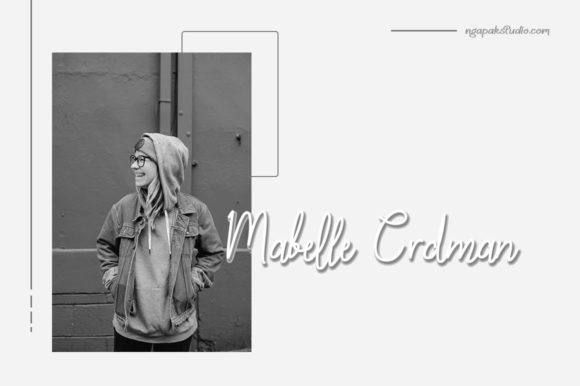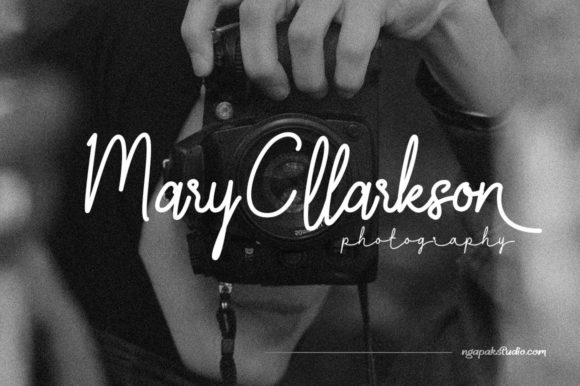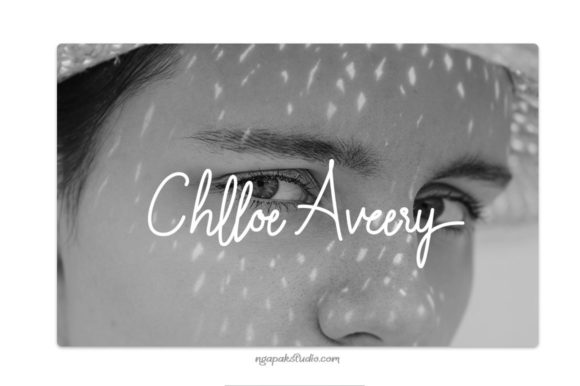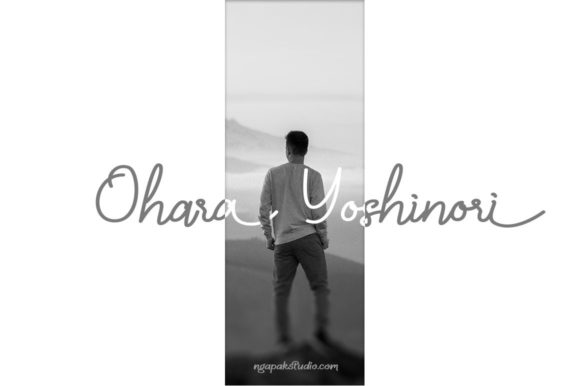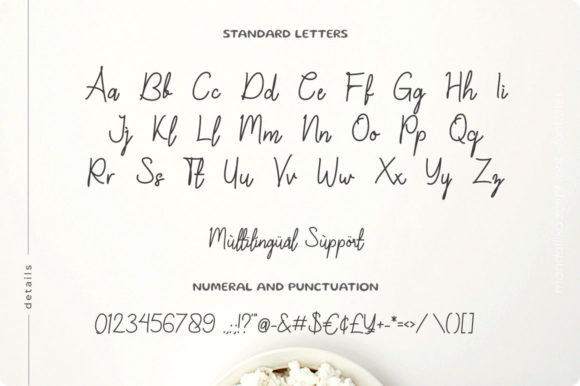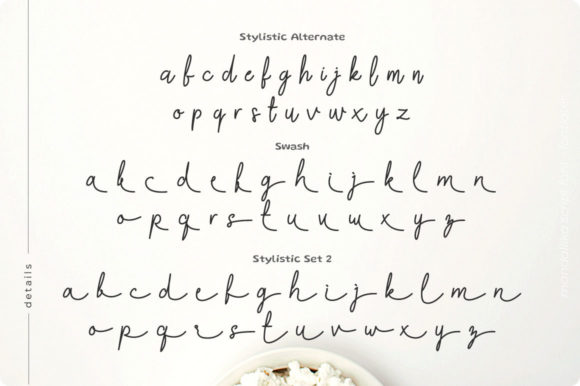
Introduction to Mandallika Font
Meet the Mandallika Font, a stunning handwritten font that’s perfect for adding a touch of elegance to your designs. With its unique and personalized style, this font is a valuable resource for designers looking to create high-quality designs that stand out from the crowd. And the best part? It’s PUA encoded, making it easy to access all its glyphs and swashes with ease.
Key Features of Mandallika Font
- High-quality, elegant script font perfect for creative projects requiring a touch of sophistication.
- Features a transparent background, allowing for seamless integration with any background image or design element.
- Unique, hand-drawn design elements and flourishes add a personal touch to any creative project.
- Perfect for use in wedding invitations, greeting cards, and other design projects where a touch of elegance is required.
Honest Review: Mandallika Font
I recently had the chance to work with the Mandallika Font for a creative project, and I’m excited to share my honest review.
What works well: ✨ The Mandallika Font has a beautiful, elegant design that’s perfect for projects that require a touch of sophistication. The high quality of the font is evident, and it’s great to see a free download that rivals paid options. The transparent background makes it easy to use in various design applications.
- Beautiful, elegant design
- High quality
However, there are a few limitations to consider: ⚠️ The font is a bit limited in terms of styles, and it may not be suitable for projects that require a lot of customization. Additionally, the free version does come with some watermarks, which can be distracting if you’re looking for a completely professional look.
Overall, I’m impressed with the Mandallika Font. While it’s not perfect, it’s a great design resource that’s perfect for projects that require a touch of elegance. With a bit more customization options, it could be a top contender in the design world.
Tips for Getting the Most Out of Mandallika Font
Use Mandallika Font in conjunction with other design resources to create a cohesive look. Experiment with different font sizes, colors, and styles to add visual interest to your creative project. Consider using a high-quality image or texture to add depth and dimension to your design.
Mandallika Font is suitable for a variety of creative projects, including digital invitations, social media graphics, and website headers. Its high-quality design and transparent background make it an ideal choice for designers looking to add a touch of elegance to their work.
Alternatives to Mandallika Font
Great Vibes is a beautiful, handwritten font perfect for creative projects that require a personal touch. It’s available for free download and comes with a transparent background, making it ideal for use on various design resources. Great Vibes is ideal for use in wedding invitations, quotes, and other designs where a personal, handwritten feel is desired.
Compared to Mandallika Font, Great Vibes has a more casual and relaxed feel, making it perfect for projects that require a more laid-back tone.